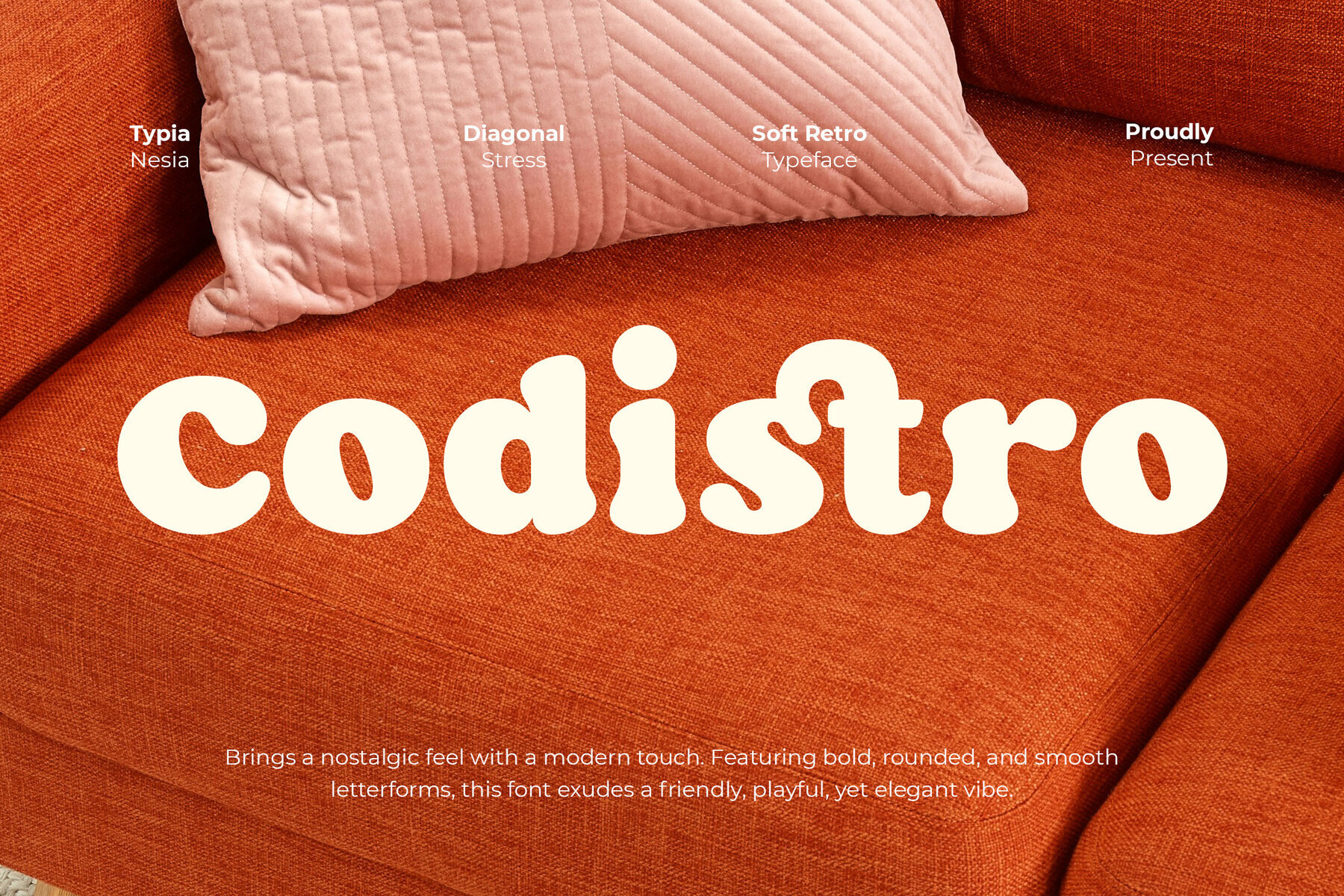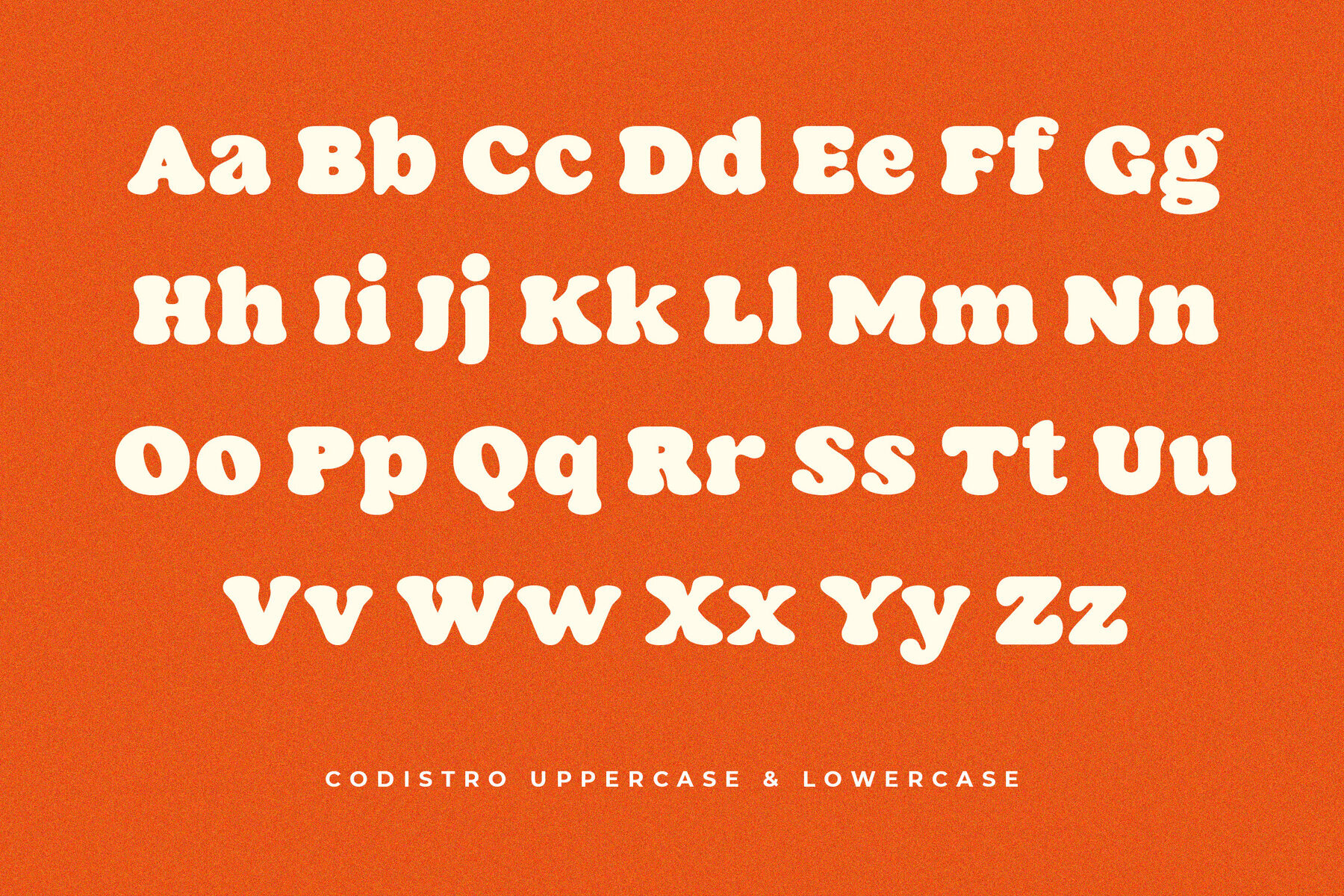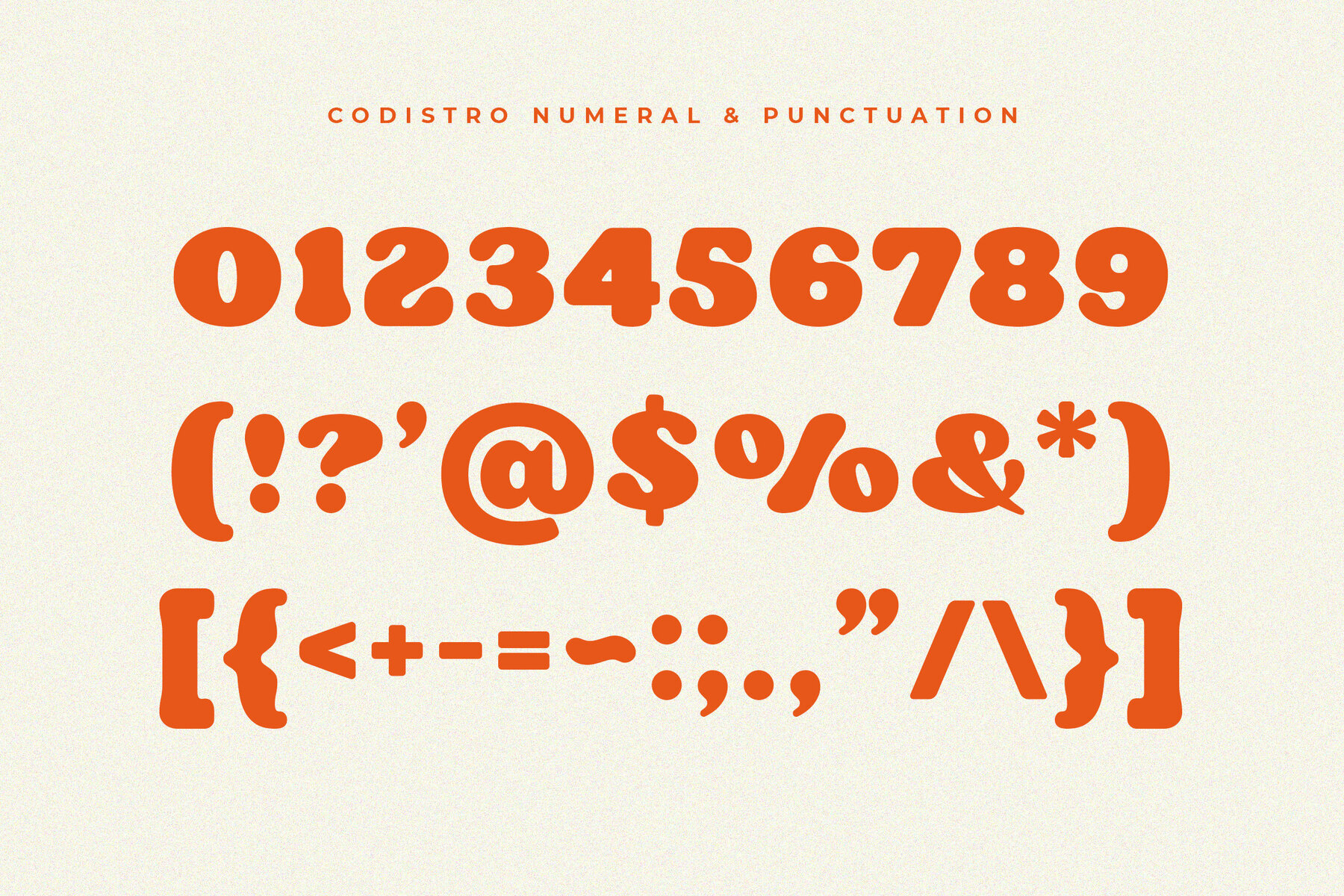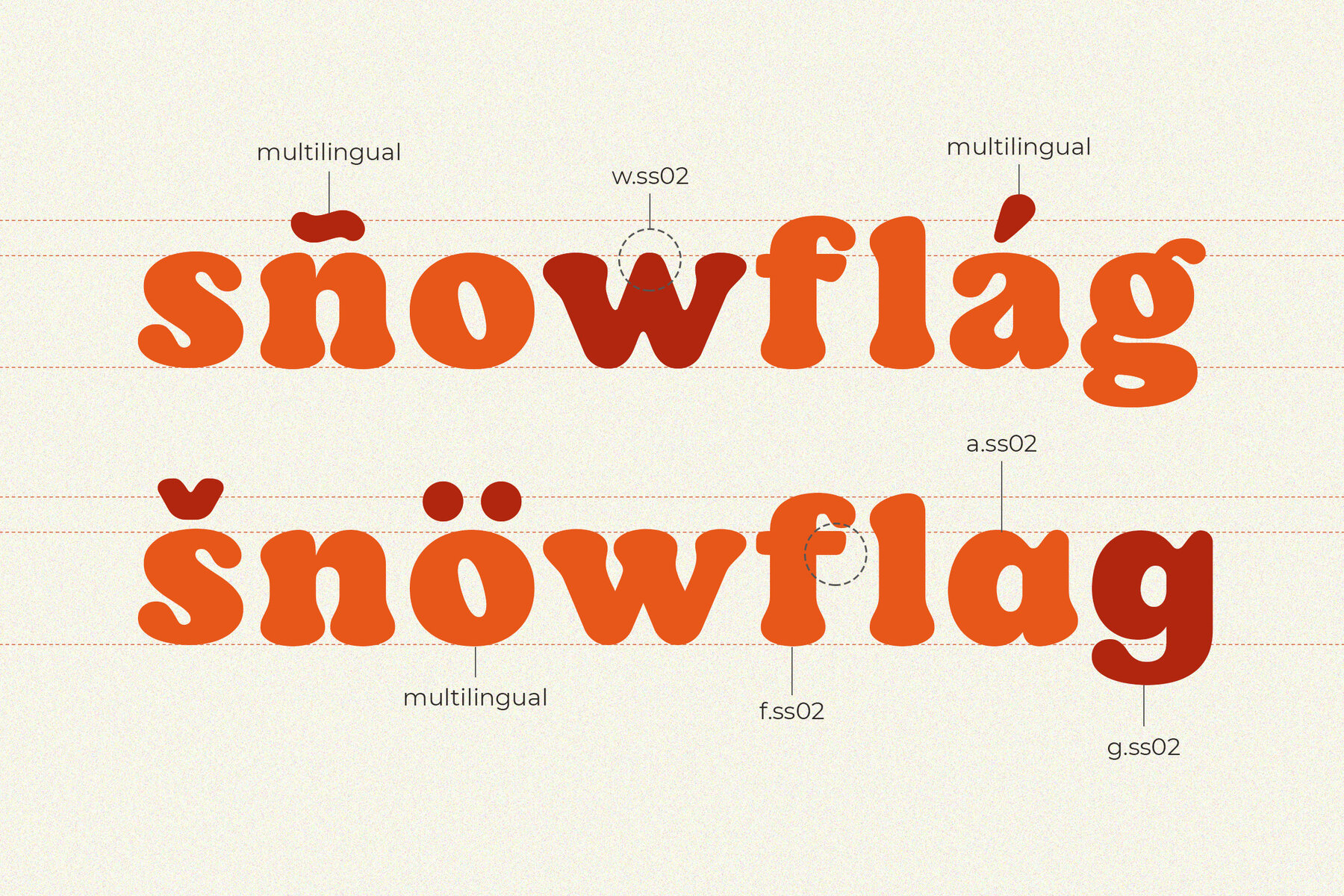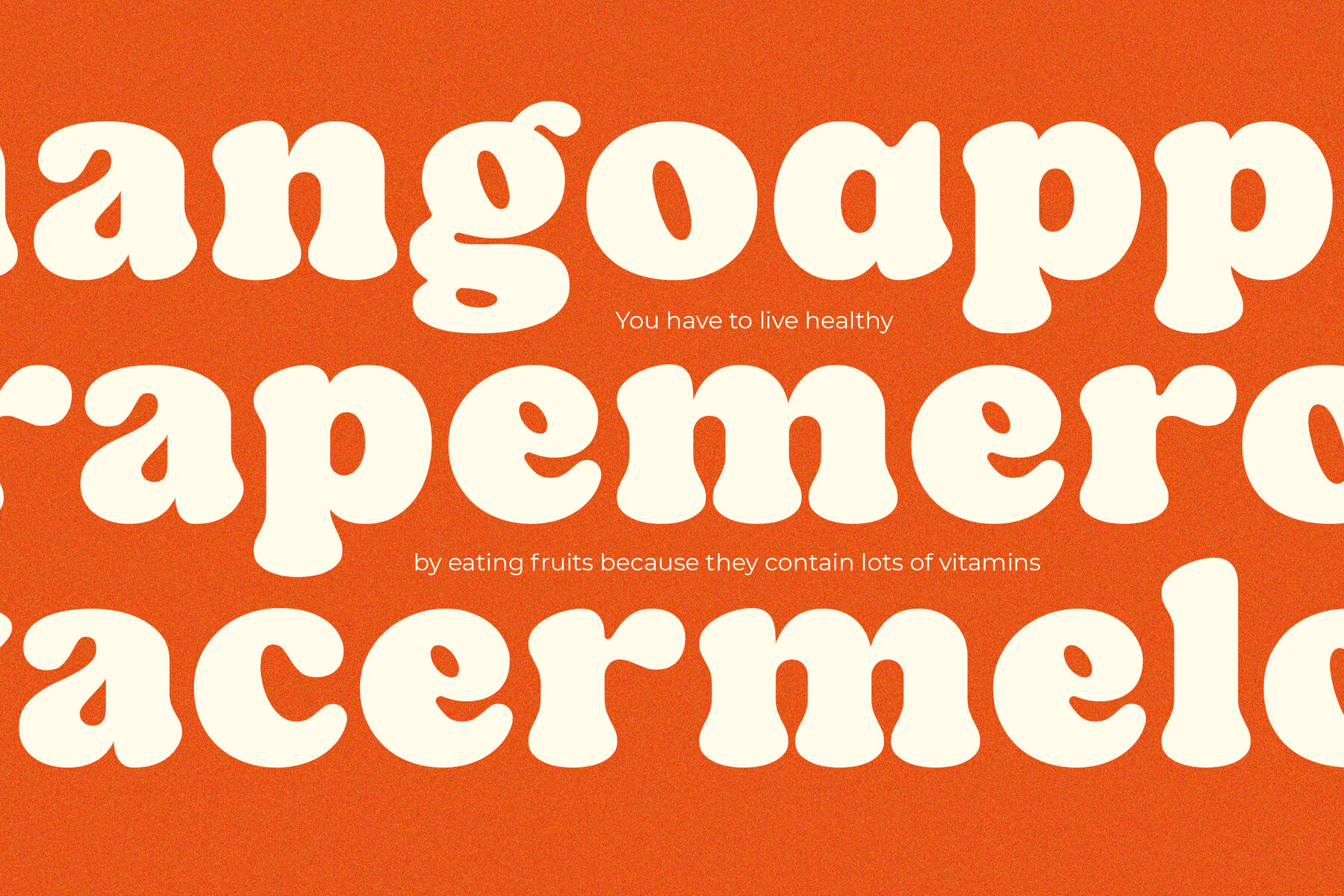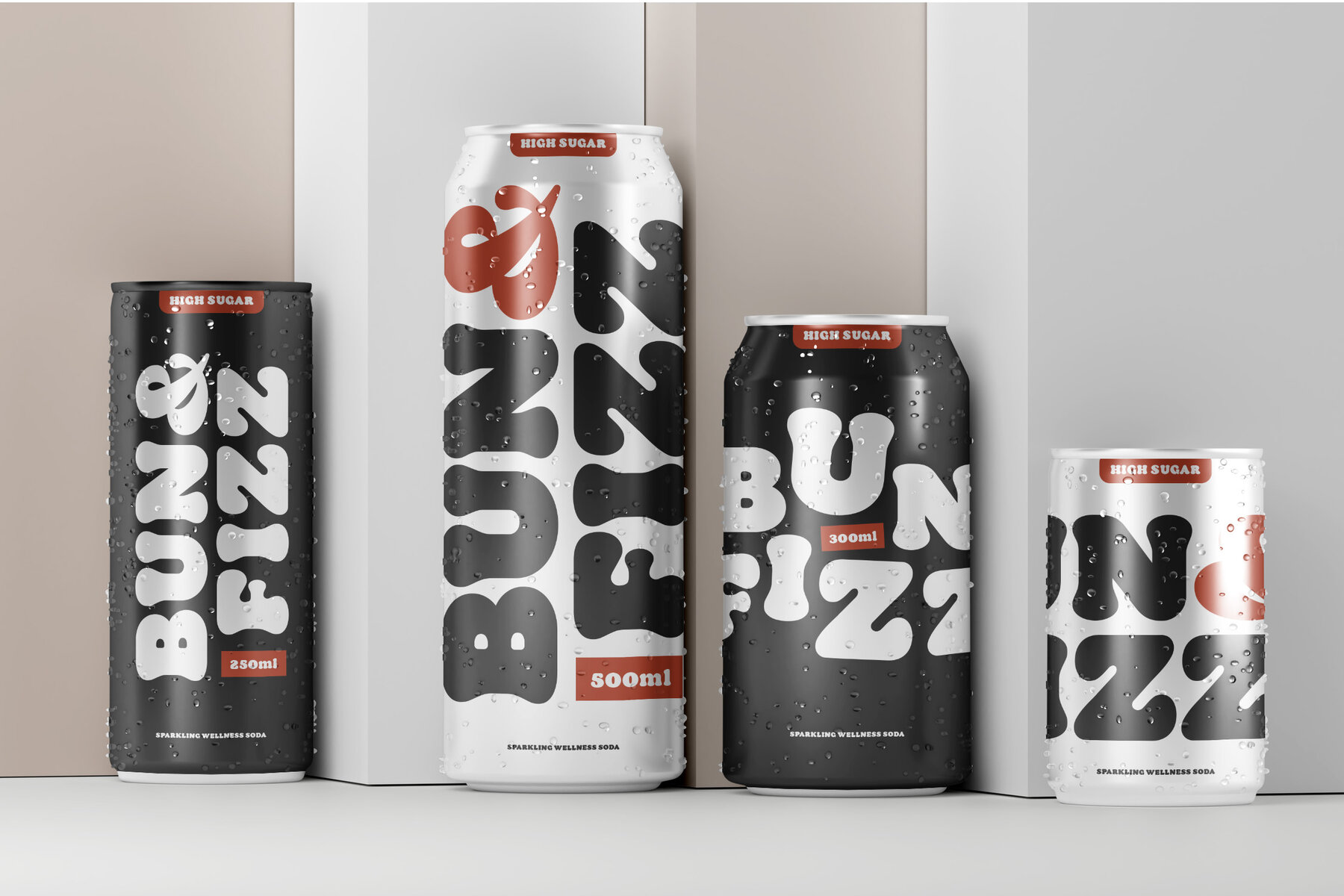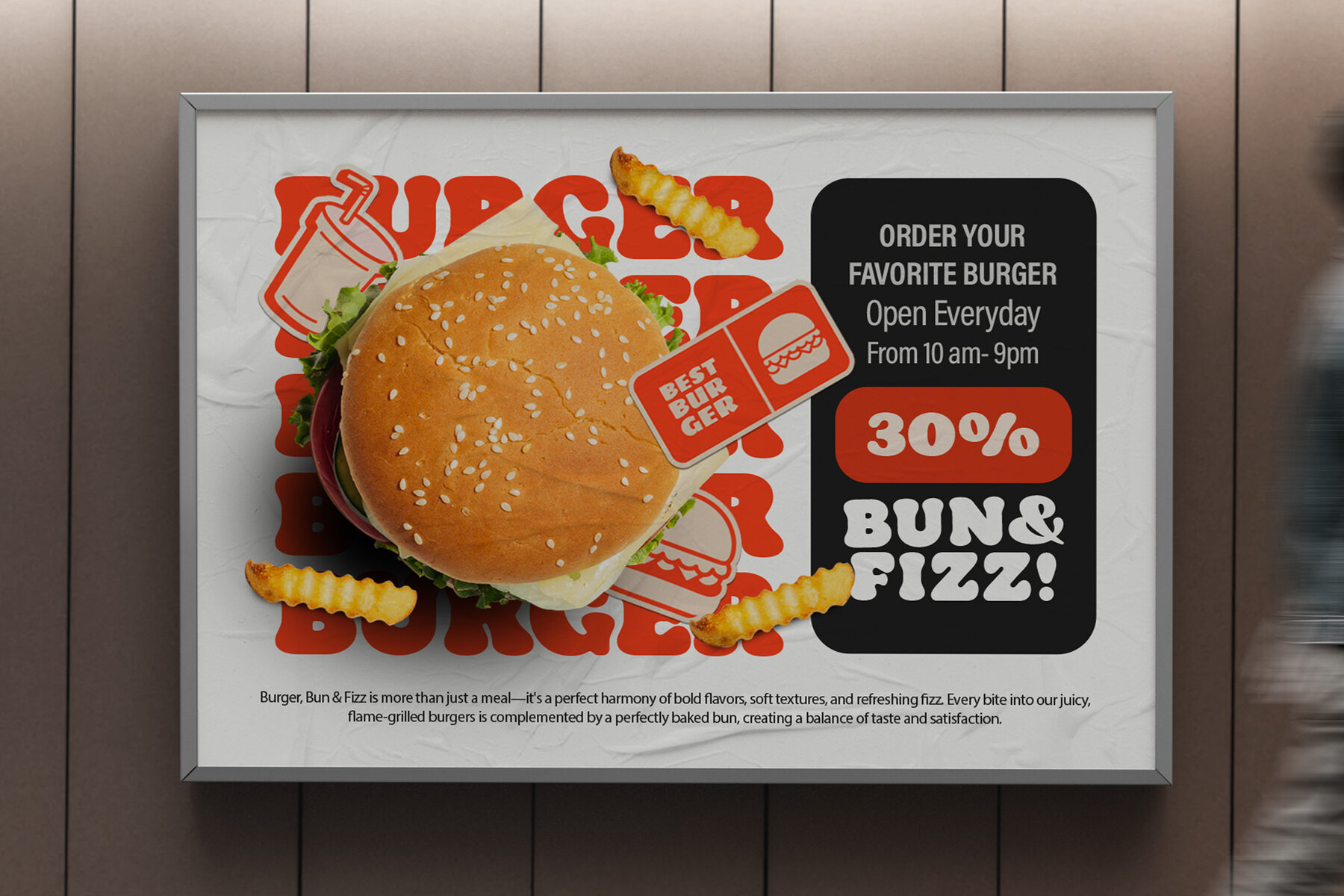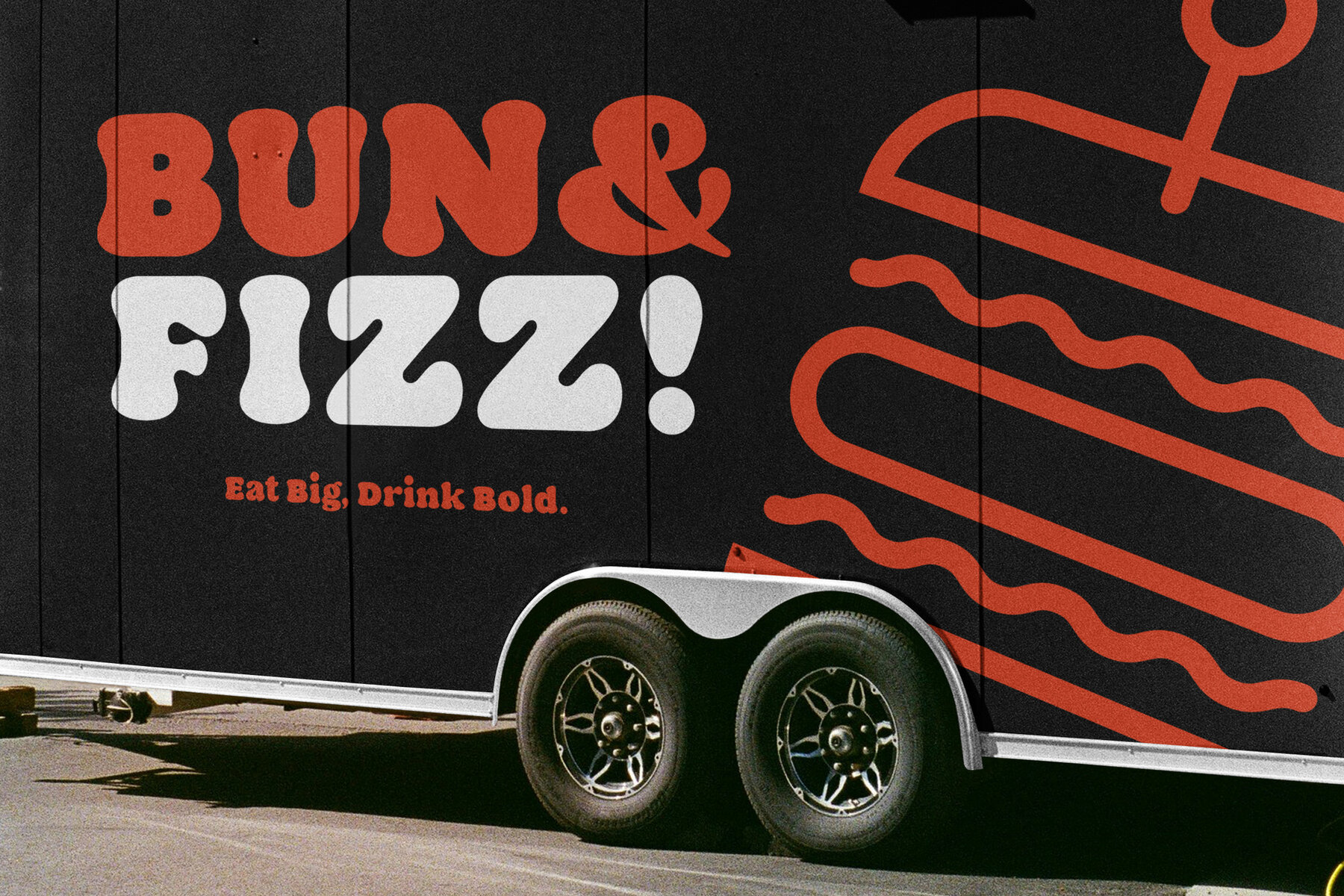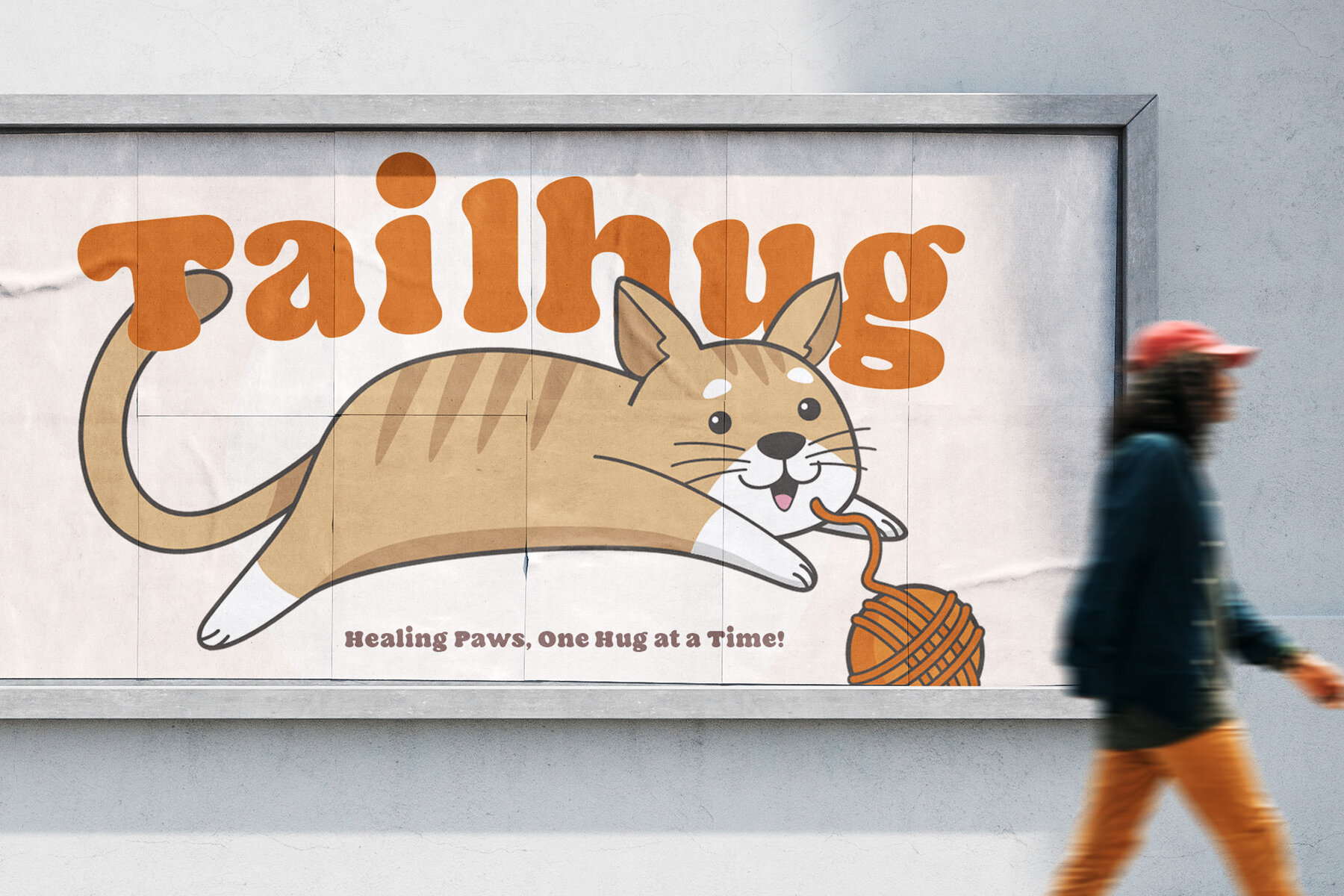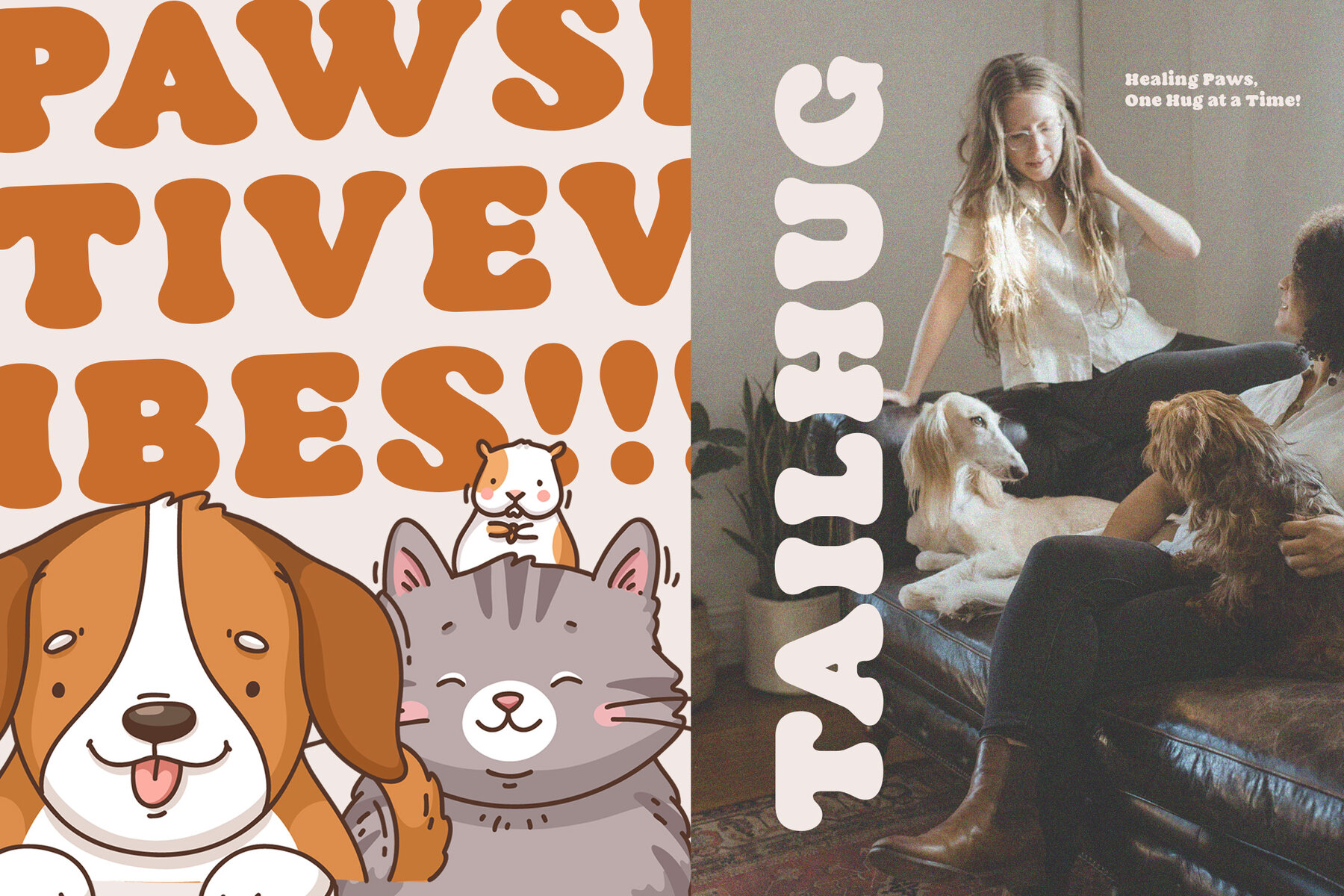
Codistro Font
Codistro is a soft retro classic typeface that masterfully combines nostalgia with a modern flair. Its smooth curves and bold letterforms provide a timeless aesthetic, making it an excellent choice for vintage-inspired designs infused with contemporary style. This versatile serif display font is ideal for branding, logos, posters, packaging, social media graphics, editorial headlines, advertising, merchandise, magazines, website headers, and any creative project seeking retro charm combined with modern elegance.
Codistro comes with a comprehensive set of uppercase and lowercase letters, punctuation, and numerals, ensuring full adaptability in design. It features ligatures and alternates, allowing for extra stylistic variation and uniqueness in typography. Designed for graphic designers, branding experts, and creative professionals, Codistro supports multiple languages, making it suitable for a variety of global projects. With its aesthetic precision and high readability, this font delivers a strong visual impact for both digital and print applications.